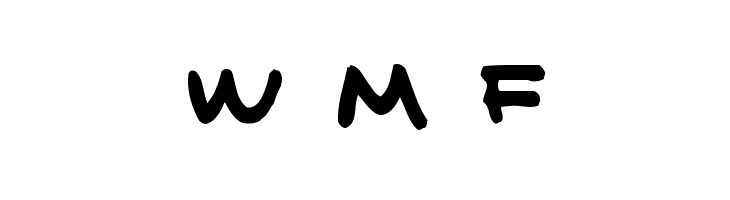
• Delffo Font
• Delfigray Font
A playful, hand-drawn font with tall, narrow letters and consistent stroke width.
• Delfina Font
A decorative and modern font with playful uppercase and clean lowercase letters.
• delfinah un Condensed Light Font
• delfinahun-CondensedLight Font
A whimsical and decorative font with playful flourishes and light strokes.
• Delfis Font
A graceful script font with elegant, flowing cursive characters and high contrast strokes.
• Delfoo Font
A flowing, elegant script font with smooth, connected strokes.
• Delgadito Regular Font
A playful, handwritten font with rounded edges and a casual style.
• Delhi Font
A sleek, modern font with clean lines and geometric shapes.
• Deli Cake Font
A bold, playful script font with flowing letterforms and decorative flair.